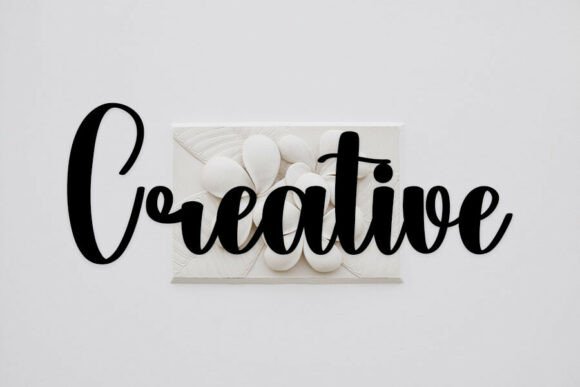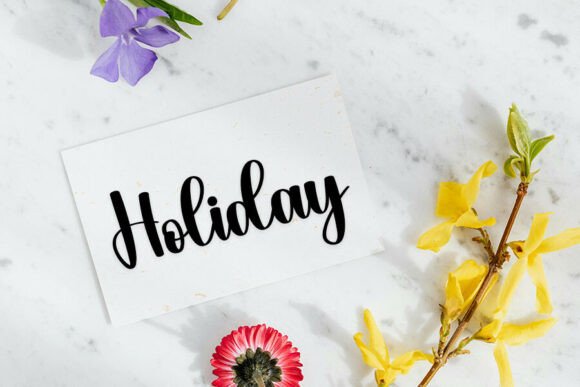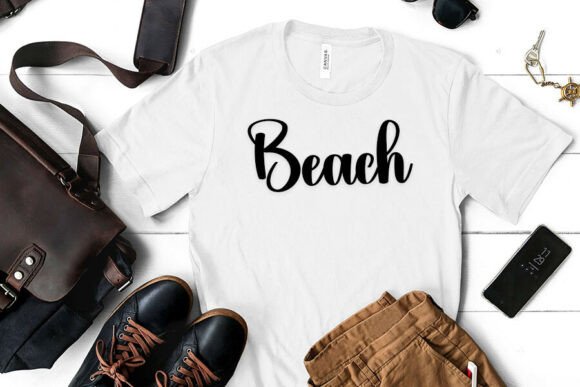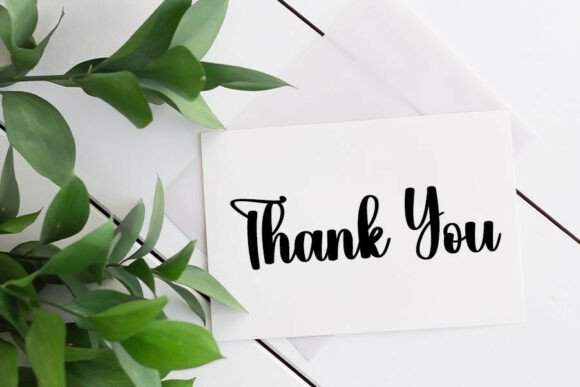
Introduction to Dancing Christmas Font Font
Fonts play a crucial role in design, and the Dancing Christmas Font font is a typeface that brings both character and versatility to any project. Whether you’re working on a branding project, a website, or a print design, the Dancing Christmas Font font offers a unique style that can elevate your work.
Dancing Christmas is a modern calligraphy font full of sparkle and movement, designed to bring a festive, elegant touch to every word.
Its sweeping curves and stylish connections create a rhythmic flow that feels like dancing lights on winter nights This typeface embodies a sense of glamour mixed with warmth, ideal for holiday designs that seek sophistication without losing friendliness.
Key Features of Dancing Christmas Font Font
Why Choose Dancing Christmas Font Font?
The Dancing Christmas Font font is more than just a typeface – it’s a design tool that helps you communicate your message with style and clarity. Its unique character set and versatile design make it suitable for a wide range of applications, from elegant invitations to bold headlines.
With its carefully crafted letterforms and balanced proportions, the Dancing Christmas Font font ensures readability and visual appeal across all mediums.
What makes Dancing Christmas Font font special?
The Dancing Christmas Font font stands out with its unique design, exceptional readability, and versatility across various design applications.